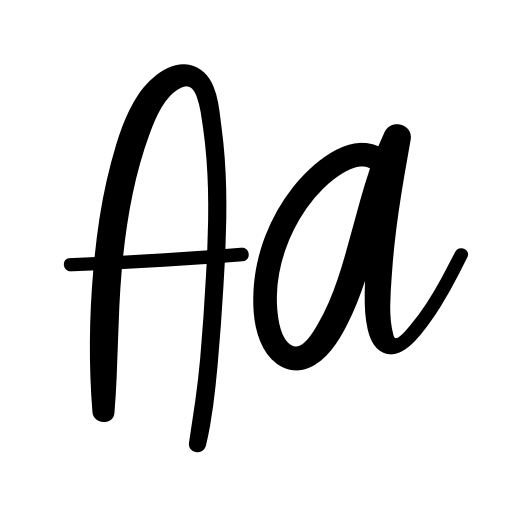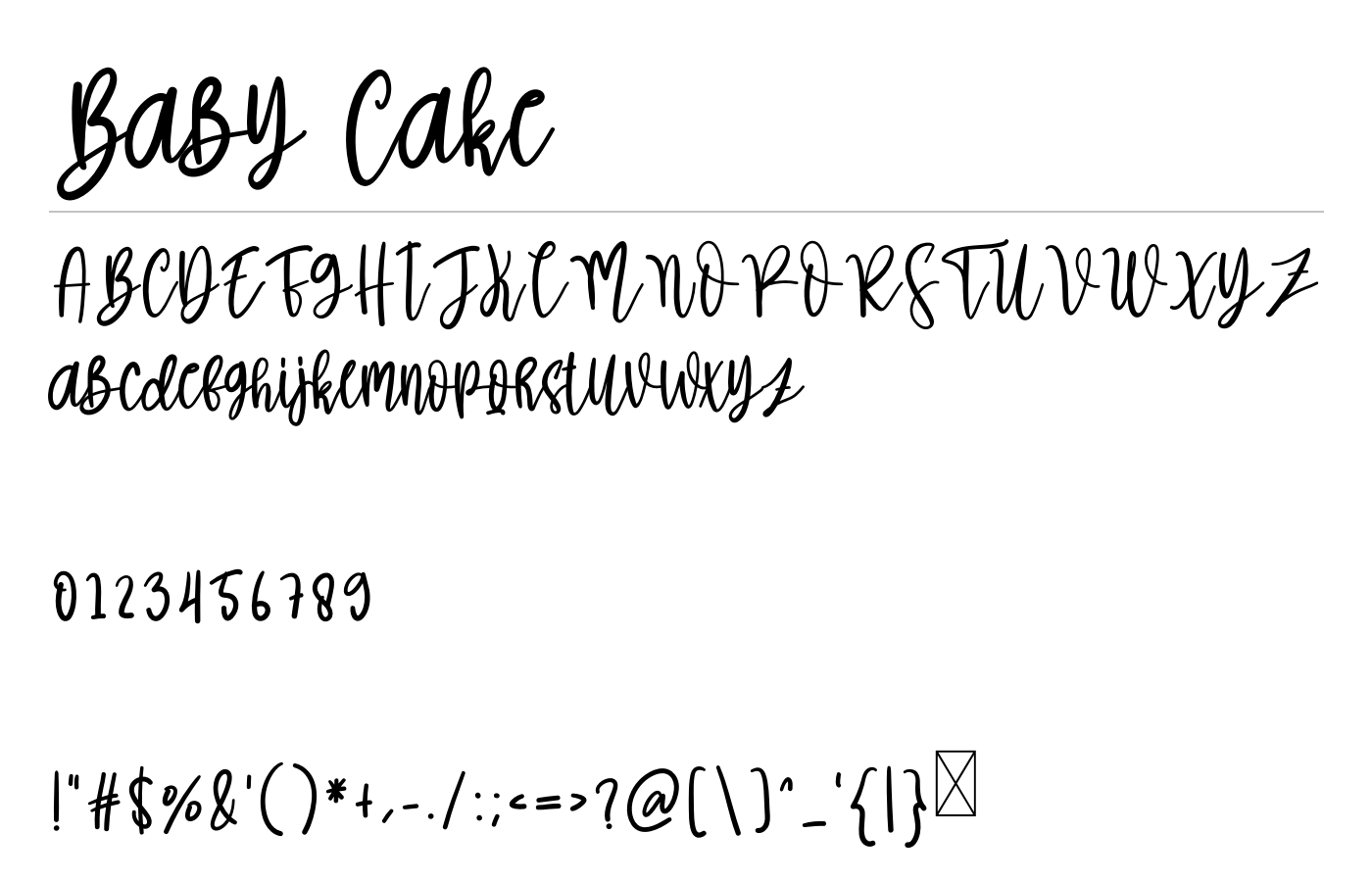
Baby Cake Font is a playful and charming handwritten script with a casual, friendly feel. Its tall, slender letterforms and natural, flowing strokes create a warm, approachable style perfect for invitations, branding, and creative projects that seek a personal touch. This font works well in designs that want to convey a youthful, cheerful, and lively personality.
Baby Cake Font
About Baby Cake Font